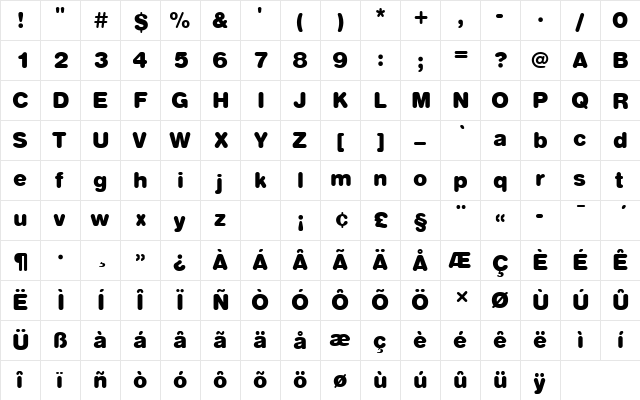
NimbusSanDBlaRo1 Regular
Design Context for NimbusSanDBlaRo1 Typeface
NimbusSanDBlaRo1 is a composed and adaptable typeface that performs quietly and consistently across a wide range of design contexts.